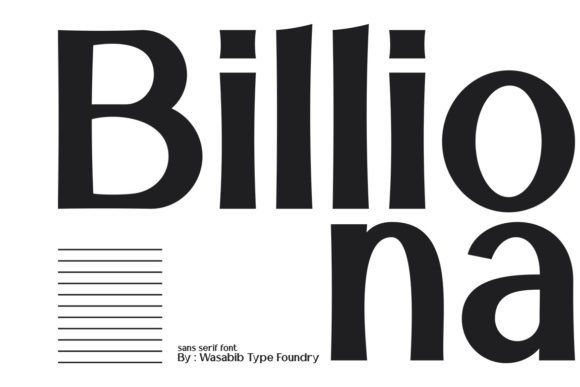
Discover the Perfect Blend of Modernity and Elegance
Have you ever been stuck on a design project, staring at a blank canvas, desperately searching for the perfect font to bring your vision to life? We’ve all been there. The struggle to find a font that captures the essence of your creative intent can be frustrating, but what if we told you that there’s a solution that’s both timeless and modern?
Enter the Billiona Font, a harmonious blend of clean lines and subtle serif-inspired details that will elevate your digital and print media designs to new heights. With its versatility and sophistication, Billiona Font is a valuable asset for designers looking to create truly exceptional work. Whether you’re a seasoned pro or just starting out, this font is sure to inspire and guide you towards design excellence.
Billiona Font Key Features
- Font Family: Billiona is a sans-serif font family designed for digital use, available in several weights and styles.
- Size: The font family includes 12 styles, ranging from thin to extra bold, with corresponding font sizes and weights.
- Unique Characteristics: Billiona features a clean and modern design, with a focus on legibility and readability in digital environments. Its unique characteristics include a subtle rounded edge and a high x-height.
- Font Pairing: Billiona is designed to be versatile and pair well with other sans-serif fonts, making it an excellent choice for digital projects requiring a clean and modern aesthetic.
Billiona Font Review
After using Billiona Font, I have to say that it’s a solid choice for designers looking for a clean and modern sans-serif font. ✨ The font’s simplicity and legibility make it perfect for body text, while its geometric shapes give it a sleek and sophisticated feel. ✨ The font also supports a wide range of languages, which is a huge plus for designers working on international projects.
However, there are some limitations to consider. ⚠️ The font’s aesthetic may not be for everyone, and some designers might find it too minimalist or bland. ⚠️ Additionally, the font’s weight and contrast may not be suitable for all types of content, such as headlines or titles.
Overall, I’d say that Billiona Font is a reliable choice for designers who want a clean and modern font that gets the job done. While it may not be the most exciting or innovative font out there, it’s a solid foundation for any design project. If you’re looking for a font that’s easy to read and works well in a variety of contexts, Billiona Font is definitely worth considering.
- ✨ Clean and modern sans-serif design
- ✨ Excellent legibility and readability
- ✨ Supports a wide range of languages
- ⚠️ May not be suitable for all design styles or contexts
- ⚠️ Limited weight and contrast options
Tips for Getting the Most Out of Billiona Font
For best results, use Billiona Font in conjunction with bold or italic styles to create emphasis. Experiment with different font sizes and colors to add visual interest. Use Billiona Font for headings, titles, and short paragraphs to create a clean and modern look.
Billiona Font is ideal for creative projects, such as:
– Infographics
– Digital marketing materials
– Editorial design
The Billiona Font is a popular choice for designers, but there are other alternatives that can offer unique characteristics and versatility.
Great Vibes is a modern script font that can add a touch of elegance and sophistication to designs. It’s ideal for use in logos, titles, and headings where a handwritten feel is desired. Compared to Billiona Font, Great Vibes has a more refined and polished appearance, making it suitable for high-end branding and marketing materials.